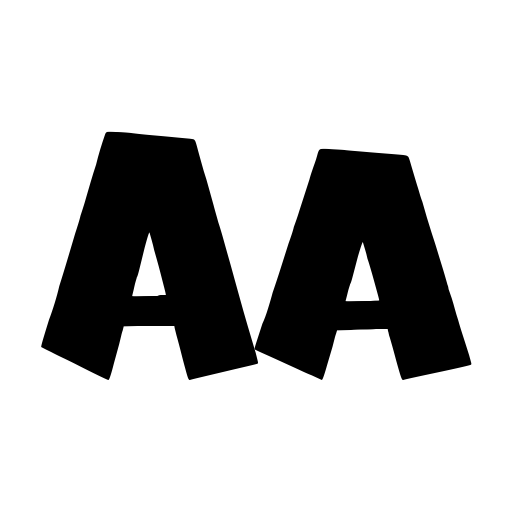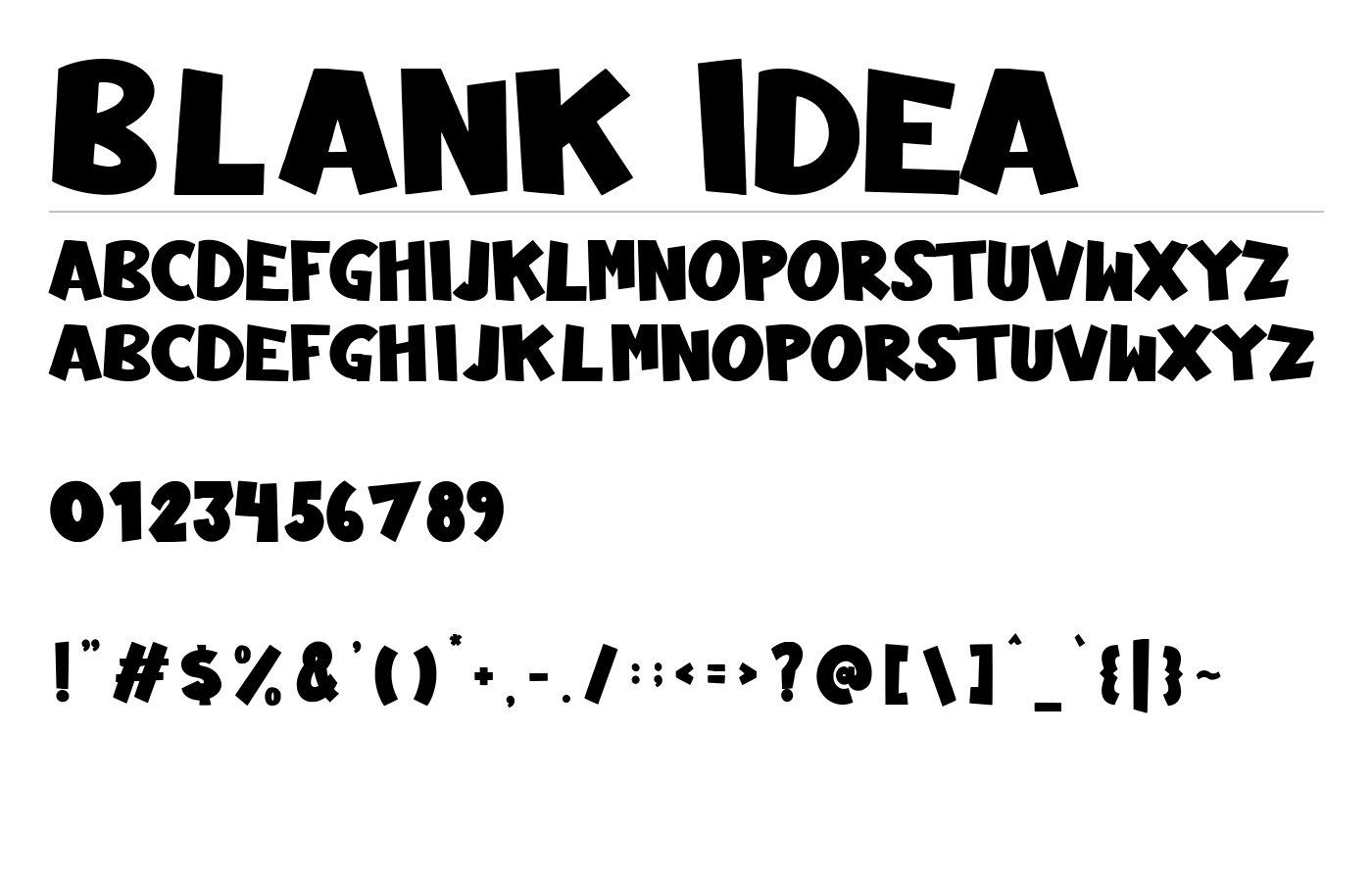
Blank Idea is a bold, playful sans serif font with a chunky, irregular style that feels fun and informal. Its lively letterforms have a hand-drawn, slightly quirky character, making it perfect for creative projects, children’s materials, and casual branding that want to convey energy and approachability. This font stands out best in headlines, posters, and logos where a whimsical and eye-catching look is needed.
Blank Idea Font